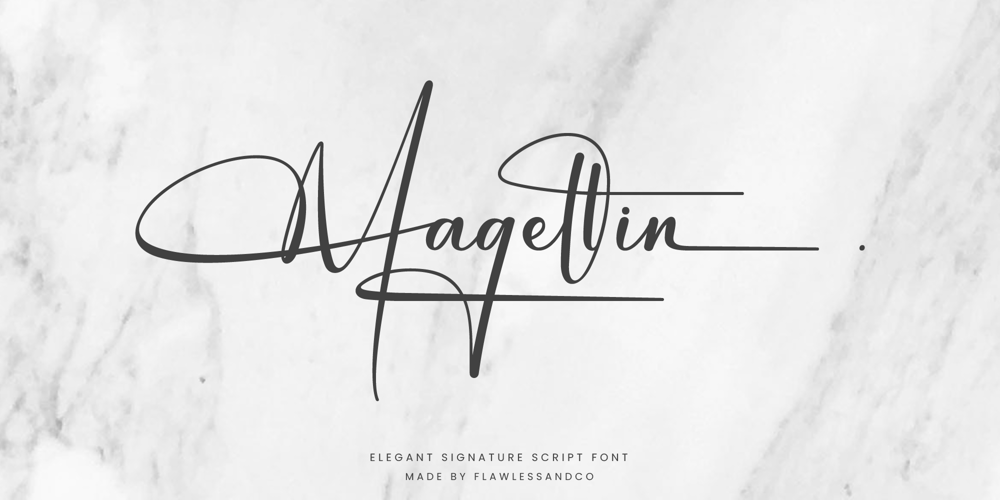
Magllin
Magllin font
Magllin Font Family was designed by Achmad Yani and published by Flawlessandco. Magllin contains 1 styles and family package options. Introducing “Magllin” – An Elegant Signature Script Font. Unlock the allure of elegance and sophistication with “Magllin,” an exquisite signature script font that adds a touch of grace and style to your designs.There’s some connected letters and some alternates that suitable for any graphic designs such as branding materials, t-shirt, print, business cards, logo, poster, t-shirt, photography, quotes .etcThis font support for some multilingual. Also contains uppercase A-Z and lowercase a-z, alternate character, numbers 0-9, and some punctuation.If you need help, just write me! Thanks so much for checking out my shop!